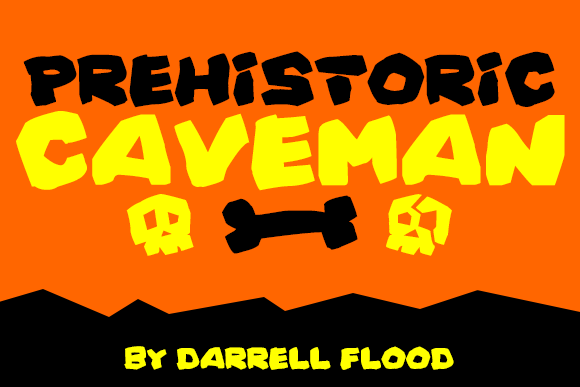
Step into the world of prehistoric wonder and embrace the captivating allure of Prehistoric Caveman Font, an audacious and striking creation from Dadiomouse, the master of captivating fonts. This hand-crafted font is a testament to the flair and creativity of its creator, Darrell Flood.
Prepare yourself to be spellbound by the imaginative brilliance of Prehistoric Caveman Font, a decorative font that will infuse your designs with an air of primeval charm and adventure. Its playful strokes and charming imperfections capture the essence of a forgotten era, transporting you to a world where dinosaurs roamed and the echoes of ancient ancestors whispered in the wind.
With Prehistoric Caveman Font as your artistic ally, you have at your disposal a font that breathes life into your prehistoric-themed creations. Dive into a treasure trove of special characters, from enigmatic skulls to weathered bones, each element meticulously crafted to enhance your designs with an unmatched level of authenticity.
Engage your audience with Prehistoric Caveman Font's dynamic personality and transform your projects into captivating visual experiences. Whether you're crafting logos, posters, invitations, or marketing materials, this font will command attention, ignite curiosity, and leave a lasting impression on all who encounter it.